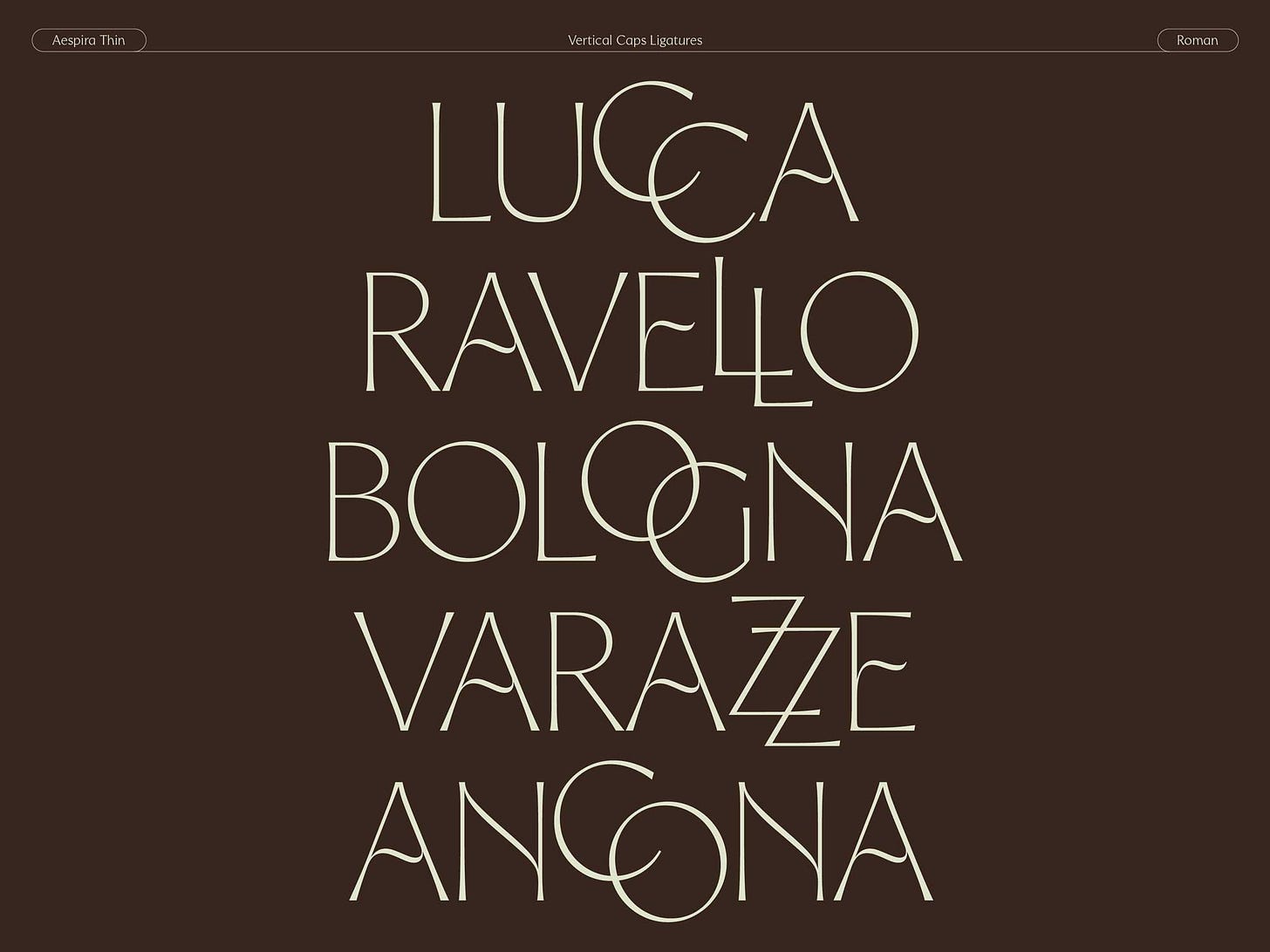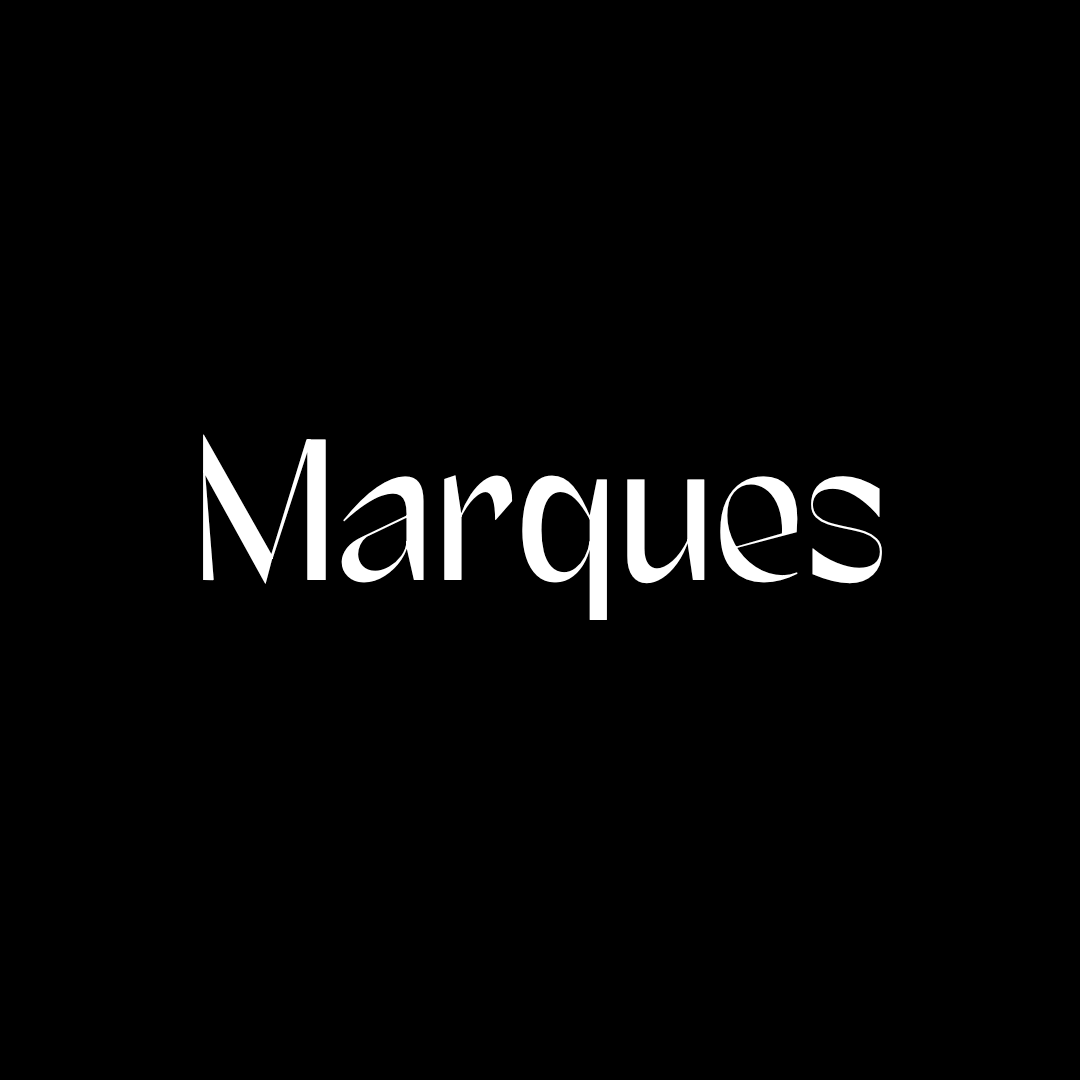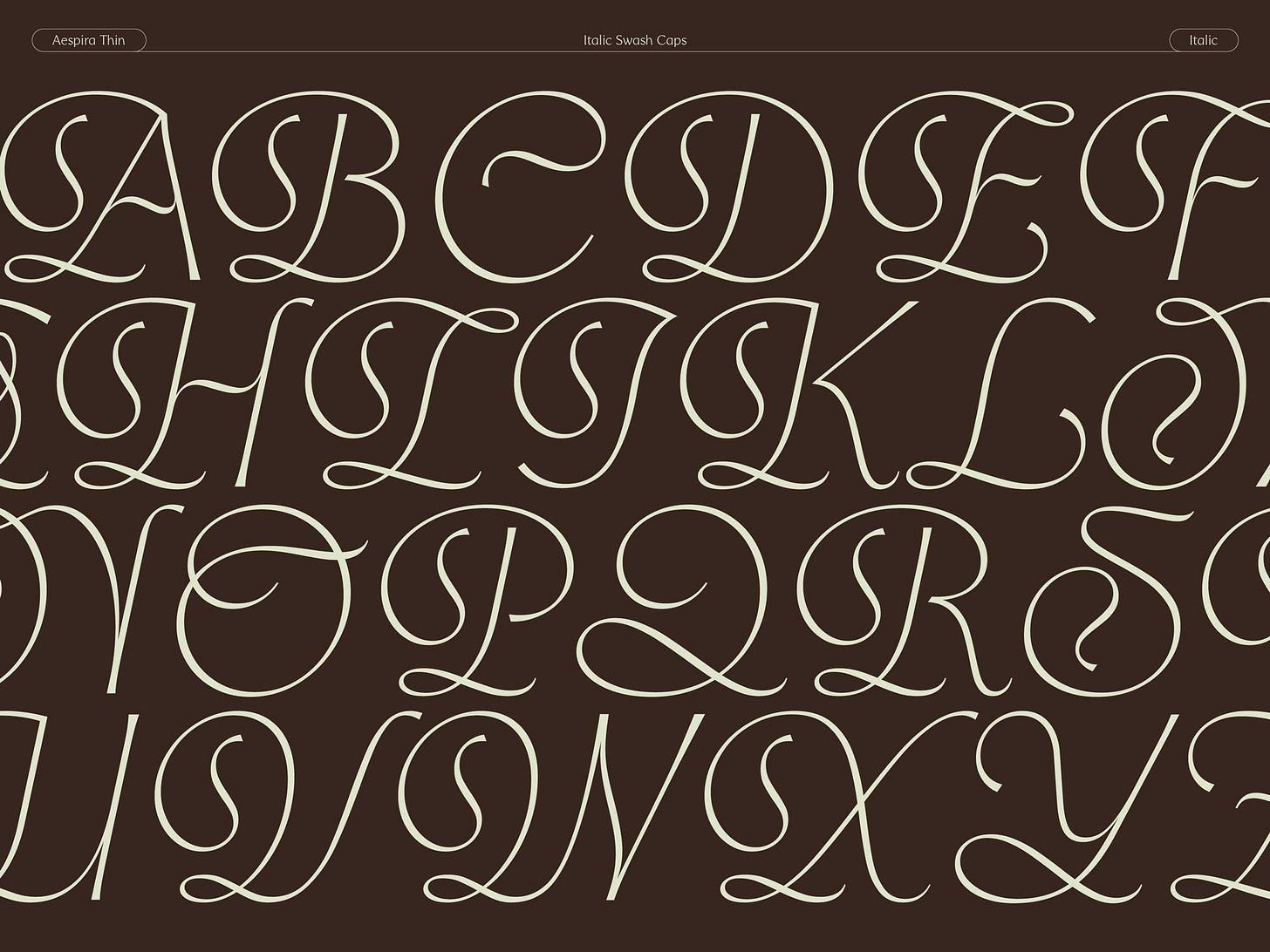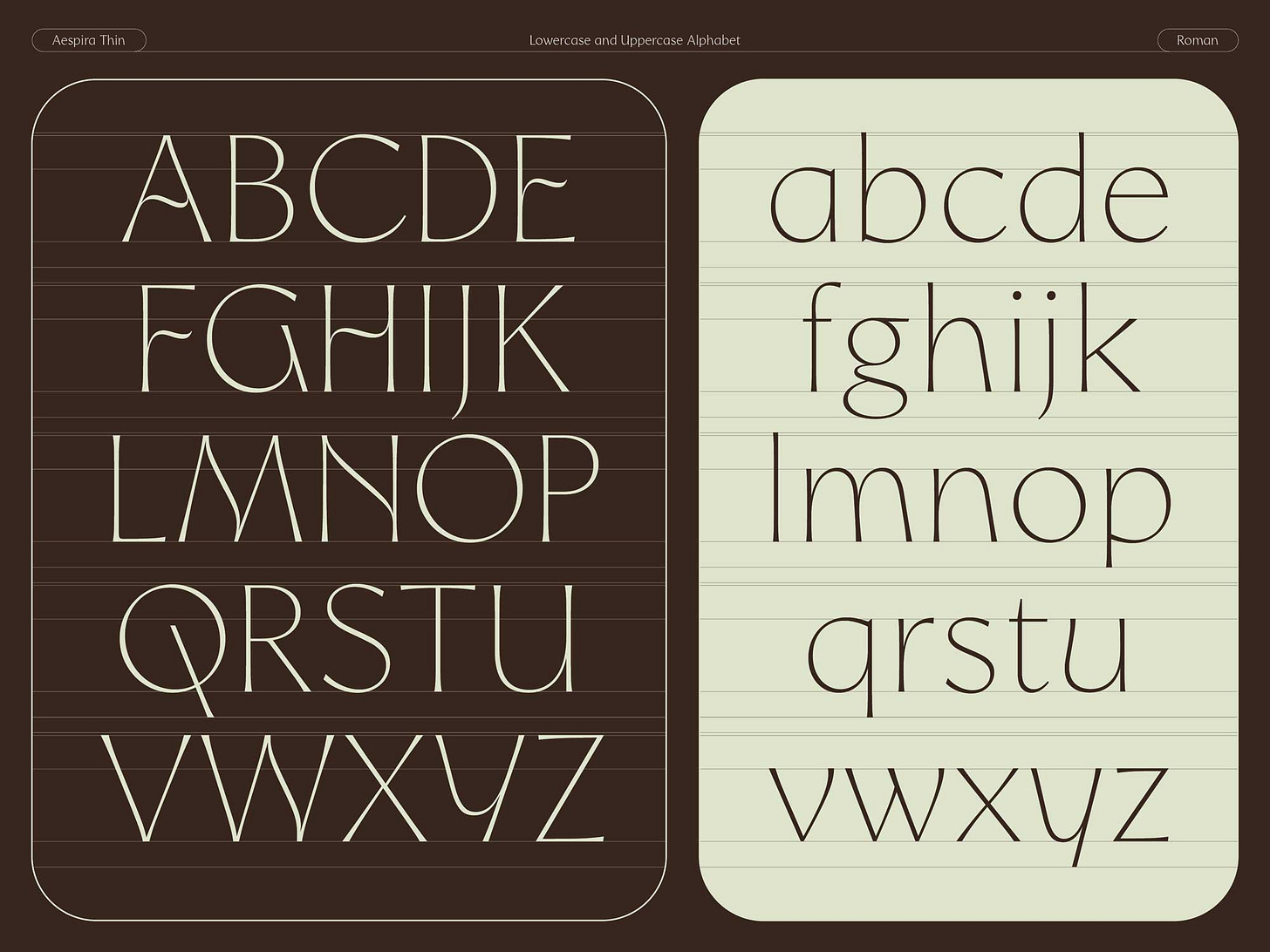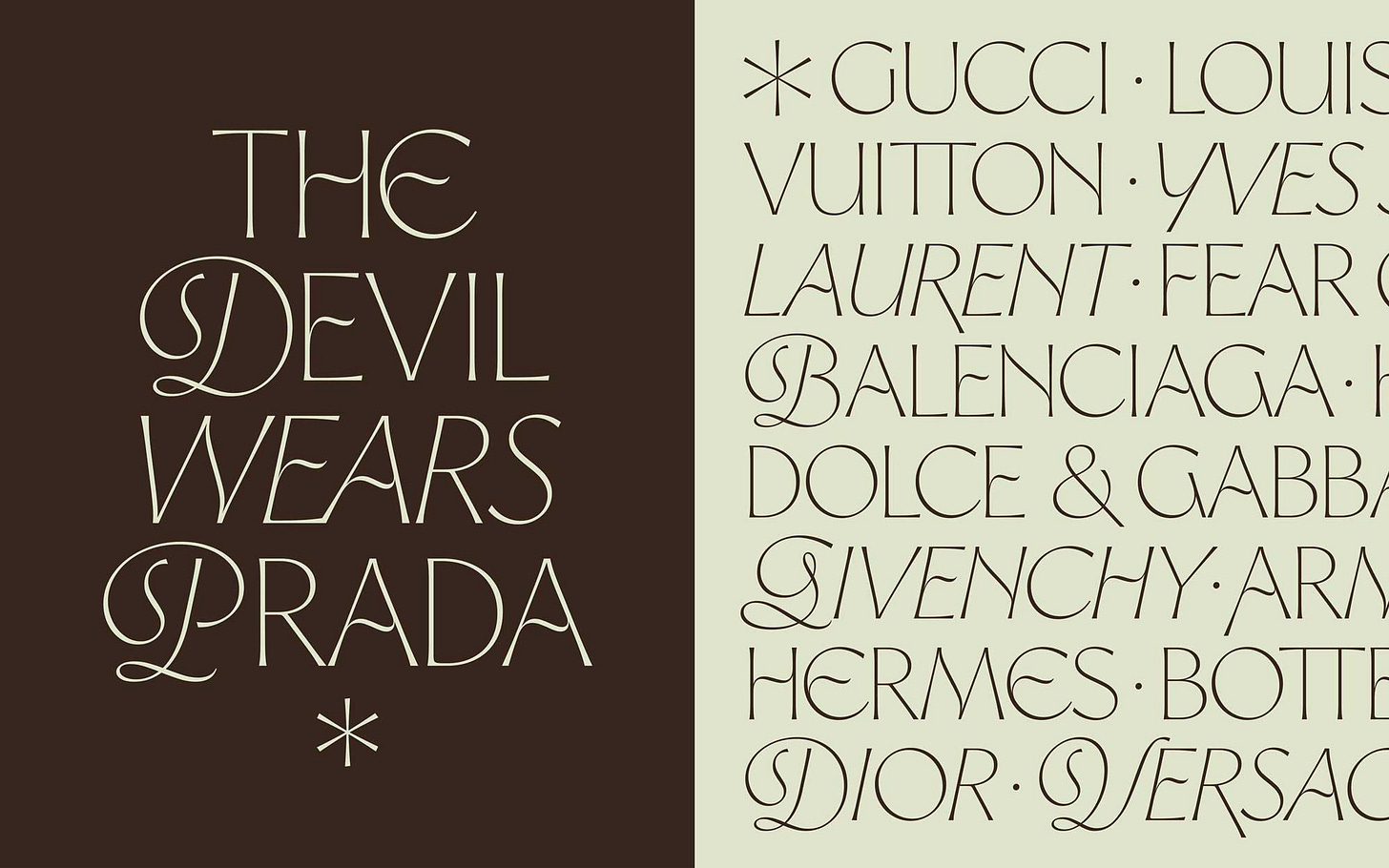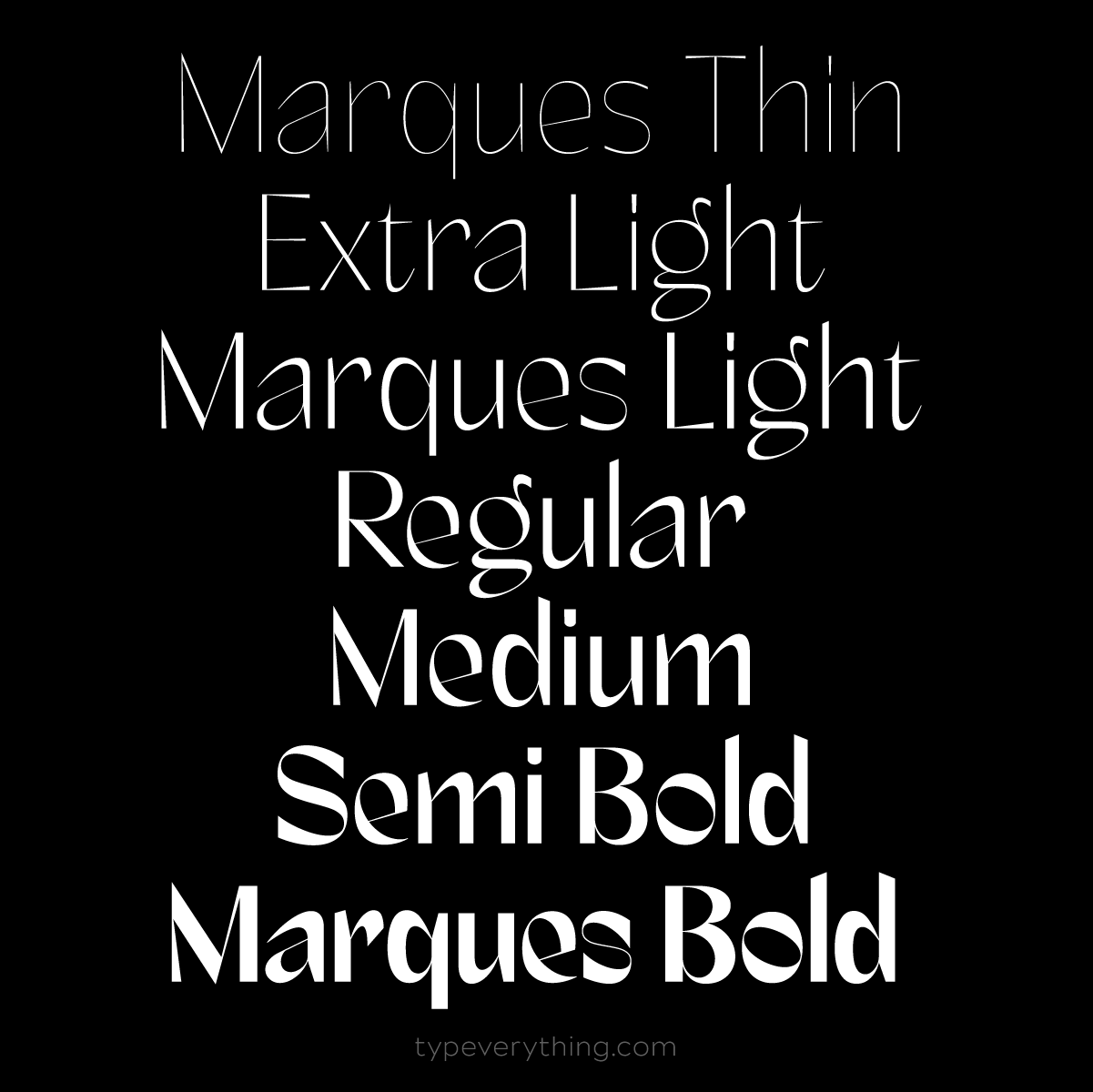
Type updates from Typeverything.
1. Graf just got a rounded version: Bubble!
2. Marques is now Variable
We’re introducing 6 new weights for Marques (+variable).
3. Introducing Aespira
It comes in two styles: Roman + Italic. Designed by Mark van Leeuwen.